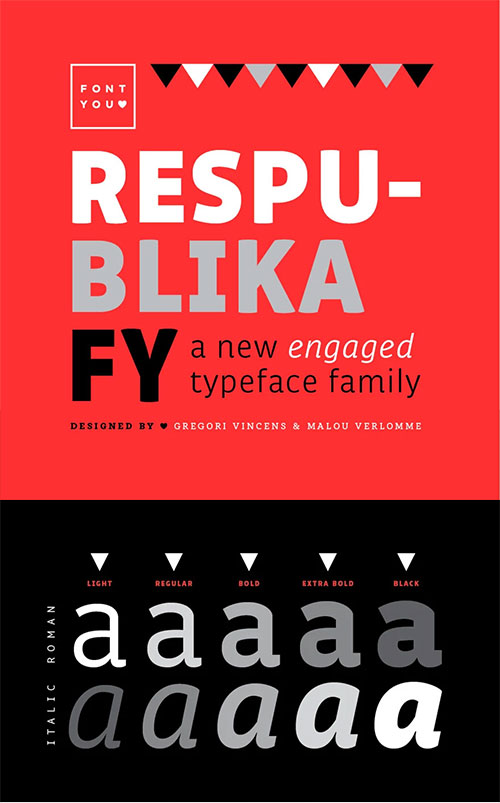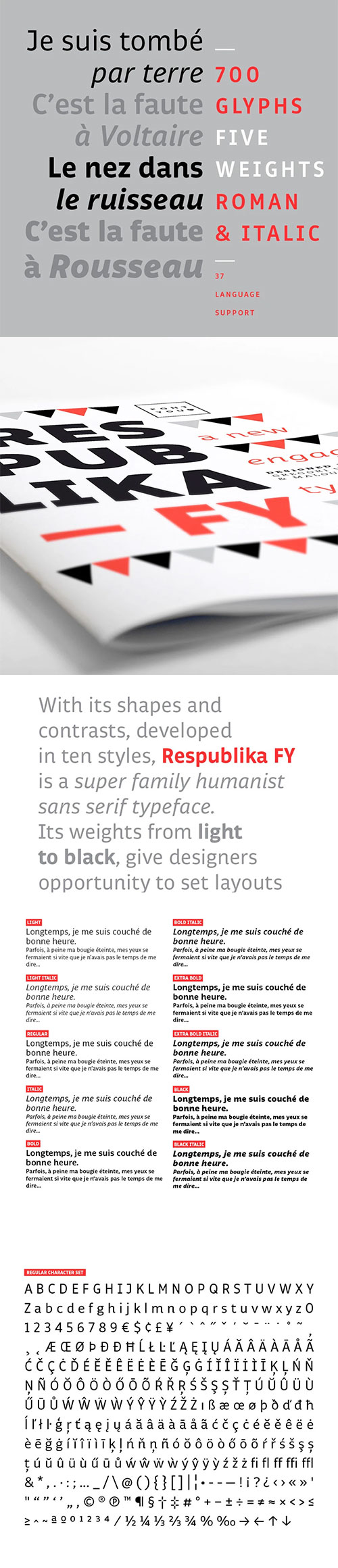
Respublika FY Font Family - 10 Fonts
- Offering a variety of shapes and contrasts, Respublika FY is a humanist sans serif typeface super family developed in ten styles. Its range of light to black weights gives designers an opportunity to set layouts with rich contrasts.